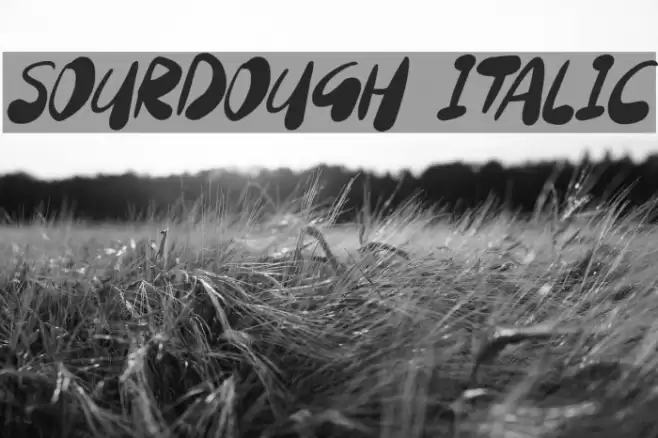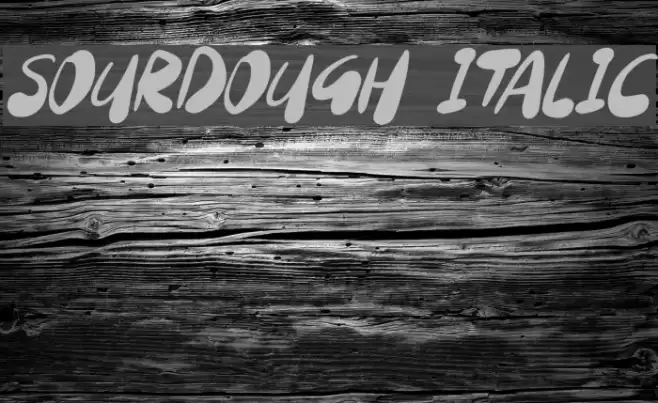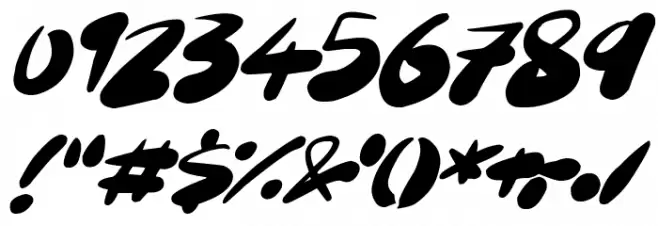
Sourdough Italic Font
Sourdough Italic Description
This font features a bold and expressive style with a distinct handwritten appearance. The characters are fluid and dynamic, with a noticeable slant that adds to its energetic feel. Each letter is crafted with thick strokes, creating a strong visual impact. The uppercase and lowercase letters maintain a consistent style, while the numerals and special characters complement the overall design. The font's playful and artistic nature makes it ideal for projects that require a personal touch or a creative flair.
A bold, italic, handwritten-style font with dynamic and expressive characters from Cartoon fonts.
- Proposed Projects: Ideal for branding, posters, invitations, and any project that benefits from a personal, artistic touch.